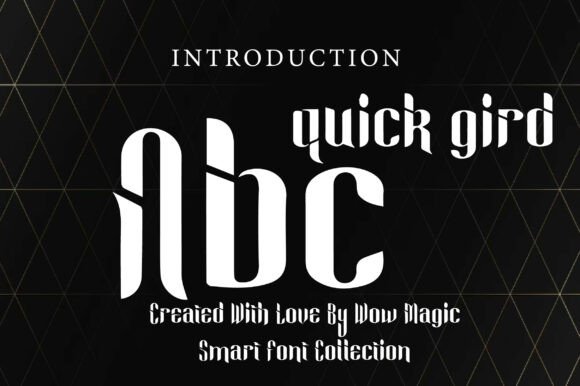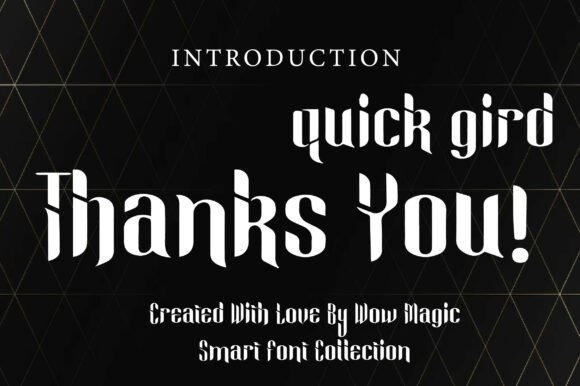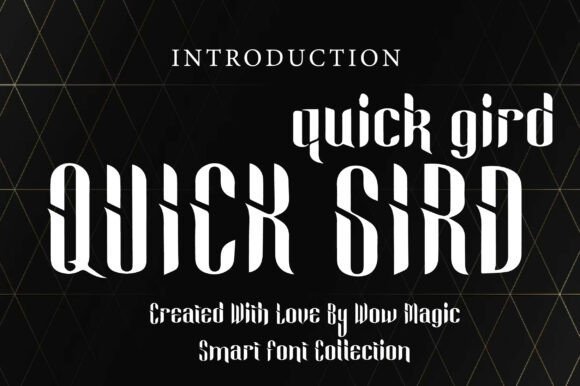
Introduction to Quick Gird Font
Quick Grid is a bold modern display font that combines elegant serif influences with sharp geometric cuts and dynamic split details.
Its distinctive grid-inspired breaks create a strong futuristic character while maintaining a refined and stylish structure The dramatic contrast, vertical emphasis, and sliced letterforms give the font a powerful visual rhythm that stands out instantly.
Key Features of Quick Gird Font
Why Choose Quick Gird Font?